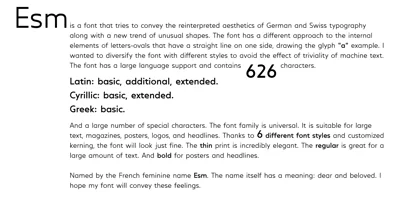
Esm Font
This minimalist sans-serif font is perfect for modern tech startups, clean web design, contemporary app interfaces, architectural firm branding, digital product packaging, innovative software logos, streamlined corporate identity, and sleek design projects that prioritize simplicity and cutting-edge functionality.
Esm Font is exciting because it embodies essential simplicity with its pure letterforms that strip away unnecessary elements to reveal perfect clarity and modern sophistication. The font delivers clean authority while maintaining effortless readability across all digital platforms.
The Esm Font family includes thin, light, regular, medium, and bold weights with matching italics, plus extended character sets, providing designers with comprehensive tools for creating minimalist typography that maximizes impact through reduction.
Ready to embrace essential design? Esm Font offers designers pure letterforms that communicate with crystal clarity and modern efficiency. This refined typeface combines minimalist aesthetics with maximum functionality, making it ideal for technology companies, design studios, and innovation-focused brands. Whether you're creating app interfaces, tech startup branding, or contemporary web designs, this font delivers pristine results. The precisely reduced characters feature optimal legibility while maintaining cutting-edge sophistication. Perfect for businesses in technology, design, digital services, and innovation sectors that value clarity and forward-thinking aesthetics. The font's essential construction creates memorable brand recognition that resonates with modern audiences worldwide. Each letter showcases deliberate simplicity that mirrors the power of thoughtful reduction. Download today and streamline your creative projects with this premium sans-serif font that transforms ordinary text into extraordinary expressions of modern clarity and the essential beauty of Esm Font simplicity.